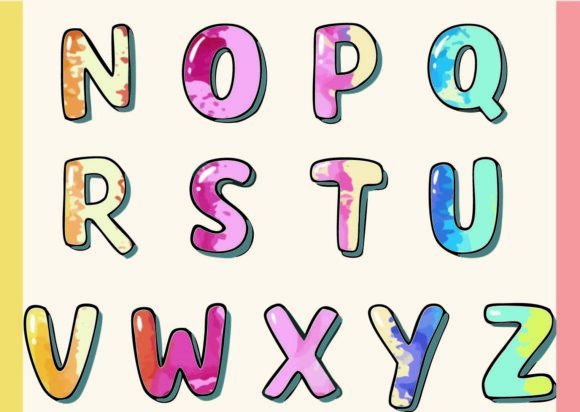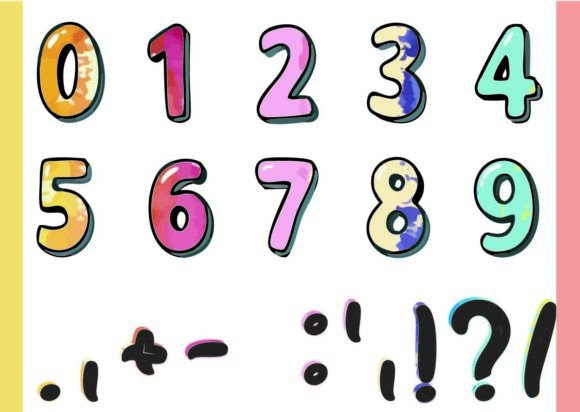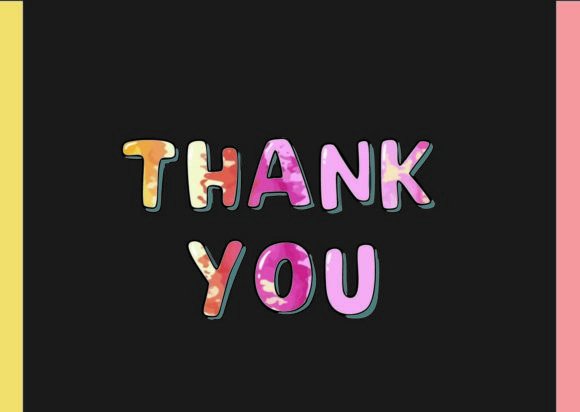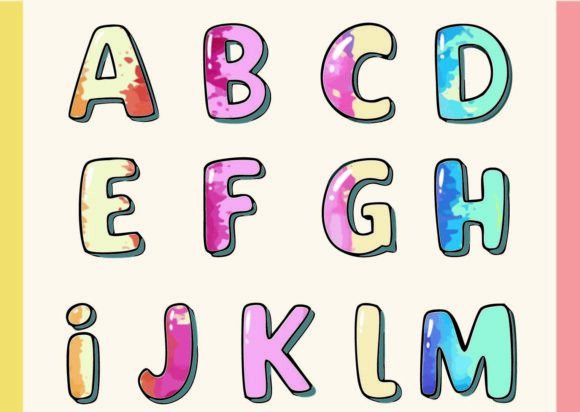
Introducing Azalea Font: A Colorful Heaven for Designers and Crafters
Are you tired of using the same old fonts for your designs? Look no further! Azalea Font is here to revolutionize the way you think about typography. This stunning color font is a game-changer for designers and crafters alike, offering a unique and vibrant way to add personality to your projects.
A Colorful Font Like No Other
What sets Azalea Font apart from other fonts is its use of multiple colors. Every single glyph has a different set of colors, creating a colorful heaven that will take your breath away. If you look closely at the glyphs, you’ll see complex sets of paths and connections in every single one of them. Each glyph could be a typographic painting!
With Azalea Font, the design possibilities are endless. Use it to create stunning headings, eye-catching titles, and beautiful quotes. The font’s colorful and playful nature makes it perfect for a range of projects, from paper crafting and scrapbooking to digital design and branding.
Azalea Font is a must-have for designers and crafters who want to add a touch of personality to their work. Whether you’re a professional designer or a hobbyist crafter, this font is sure to inspire you to create something beautiful. The font’s unique and colorful design makes it perfect for projects that require a bit of flair, such as:
- Paper crafting and scrapbooking
- Digital design and branding
- Sign making and vinyl cutting
- Stationery and gift tags
Tips for Using Azalea Font
To get the most out of Azalea Font, here are a few tips:
- Experiment with different colors and combinations to find the perfect look for your project.
- Use the font to create eye-catching headings and titles that will grab attention.
- Don’t be afraid to get creative and try new things – the font’s playful nature makes it perfect for experimenting with different designs.
Azalea Font is a game-changer for designers and crafters who want to add a touch of personality to their work. With its unique and colorful design, this font is sure to inspire you to create something beautiful. Whether you’re a professional designer or a hobbyist crafter, Azalea Font is a must-have for anyone looking to take their designs to the next level.